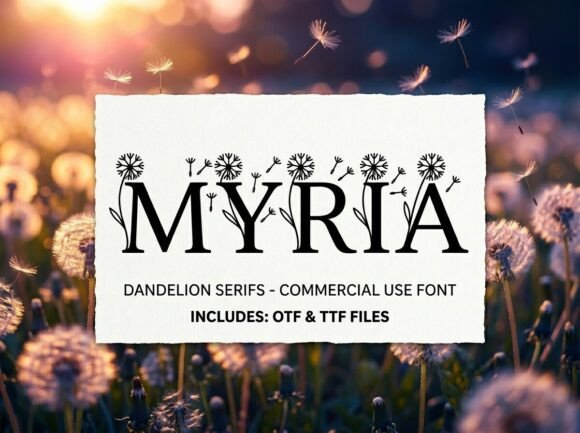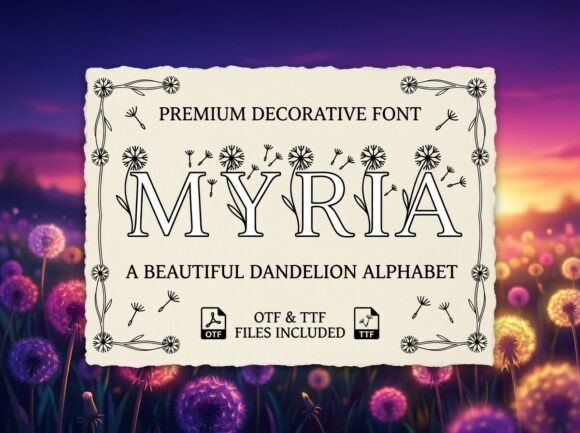
Introduction to Myria Font
As a designer, have you ever been stuck on a creative project, searching for that perfect font to bring your vision to life? I know I have. One day, while browsing through a collection of free downloads, I stumbled upon the enchanting Myria Font. Its unique blend of elegant, hollow serifs and whimsical hand-drawn dandelion puffs captivated me, and I knew I had to learn more.
Myria Font is more than just a design resource – it’s a key to unlocking the imagination and creativity that lies within. With its delicate decorative weight and playful personality, it’s the perfect choice for designers looking to add a touch of whimsy to their projects. Whether you’re working on an independent creative agency branding, a children’s book title, or a social media header, Myria Font is sure to elevate your design to the next level.
Key Features of Myria Font
- High-quality, professional font suitable for various creative projects, including graphic design, digital art, and print materials.
- Unique, elegant design with a transparent background, making it ideal for use on various backgrounds and designs.
- Available in multiple sizes, with a standard resolution of 300 DPI, ensuring crisp and clear display on various devices and print materials.
- Designed as a versatile design resource, Myria Font can be used for a wide range of applications, from corporate branding to personal projects.
- Easy to customize and manipulate, making it a great choice for designers looking for a high-quality font with a lot of creative potential.
Honest Review: Myria Font
As a designer, I’m always on the lookout for high-quality design resources to enhance my creative projects. Recently, I stumbled upon the Myria Font, and I’m excited to share my honest review with you.
What works well: ✨ The Myria Font has a beautiful, elegant design that’s perfect for any project requiring a touch of sophistication. I love the variety of weights and styles available, which makes it easy to customize my designs to fit any need. The font also includes a transparent background option, which is a huge plus for designers who want to create seamless designs.
Overall, I’m really impressed with the Myria Font. Its high quality and unique design make it a valuable addition to any designer’s toolkit. While it may have some limitations, I believe the benefits far outweigh the drawbacks. If you’re looking for a high-quality font to elevate your creative projects, I highly recommend giving the Myria Font a try.
Myria Font
The Myria Font is a high-quality design resource perfect for creative projects. This versatile font can be easily downloaded for free and features a transparent background, making it ideal for various design applications.
Tips for Getting the Most Out of Myria Font
To get the most out of the Myria Font, consider the following tips:
- Use the font in conjunction with other design elements to create a cohesive look.
- Experiment with different font sizes and styles to add visual interest.
- Use the font to create a bold and eye-catching headline.
Common Use Cases for Myria Font
The Myria Font is perfect for a variety of creative projects, including:
- Graphic design projects.
- Branding and marketing
What is the recommended font size for using Myria Font?
The recommended font size for using Myria Font is between 12-24 points. This range provides optimal readability and clarity, making it suitable for a variety of design applications, from digital signage to print materials. However, feel free to experiment with different font sizes to achieve the desired visual effect for your high-quality design project.